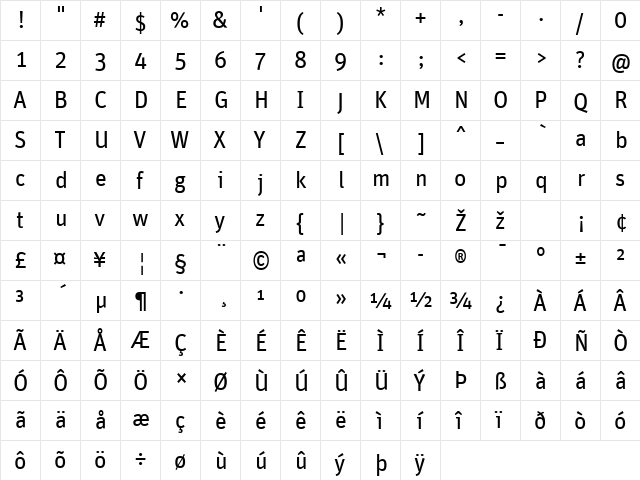
Unit-RegularTF Regular Font Preview
Unit-RegularTF Regular
Unit-RegularTF Regular Font Details
| Foundry | Erik Spiekermann, Christian Schwartz; published by FontShop International for the FontFont Library |
| Designer | Erik Spiekermann, Christian Schwartz |
Design Context for Unit-RegularTF Typeface
Unit-RegularTF offers clean, dependable letterforms without strong stylistic allegiance, making it a practical choice for designers who need flexibility.